Handwritten fonts are the perfect way to bring charm, warmth, and creativity to anything from wedding invites to social media graphics. But finding high-quality, free options can be a challenge. That’s why we’ve done the hard work for you! In this blog, we’ll introduce you to 35 of the best free handwritten fonts that are not only stylish but also versatile enough to elevate any project. Ready to discover your next favorite font? Let’s get started!
1. Willful Handwritten Font
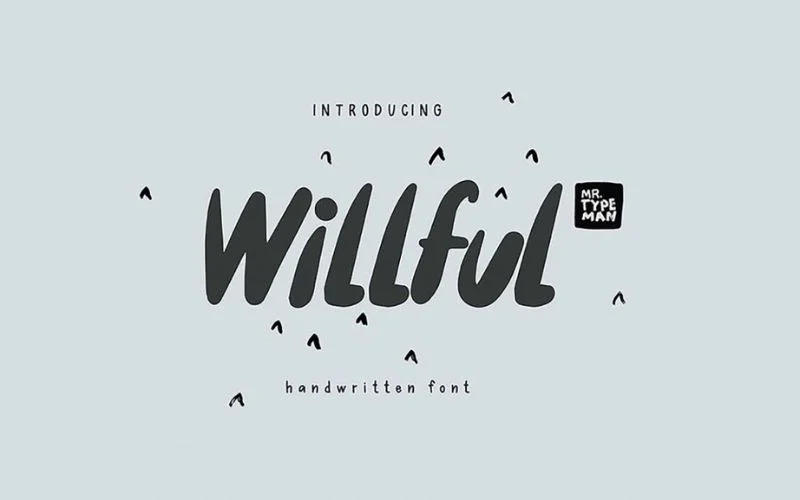
Willful is a bold and unique handwritten brush font with natural, imperfect details that mimic the human touch. Its varying character sizes give it an organic and lively feel. You can pair its uppercase and lowercase letters for a playful and friendly vibe.
It is perfect for creating greeting cards with birthday wishes or warm notes. This vibrant font comes in OTF and TTF formats and works beautifully for posters, minimalist UX/UI designs, packaging, and branding projects. Its versatility and charm make it one of the best free handwritten fonts for any creative endeavor.
2. Huf Script: Beautiful Handwriting Fonts Free
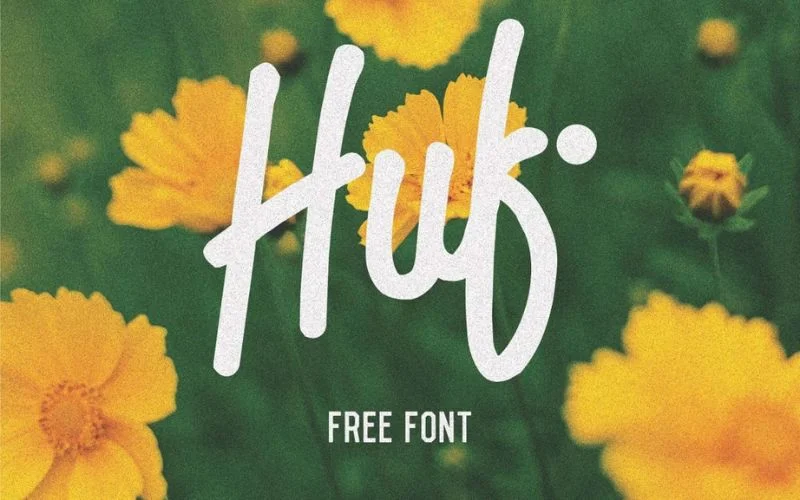
For designers, there’s nothing better than finding the perfect script font to match your design. Whether you’re working on a professional project that needs a personal touch or a fun, creative weekend project, the right font can take your design to the next level. The Huf Script Font is an ideal choice for a smooth and sophisticated handwritten style.
With its classic handwritten style, it adds a warm and familiar feel that you and your audience will adore. Featuring beautiful ligatures, Huf is perfect for greeting cards, invitations, branding projects, logos, apparel, posters, and more. Plus, it includes uppercase and lowercase letters, along with numbers.
3. Butterland Script Font
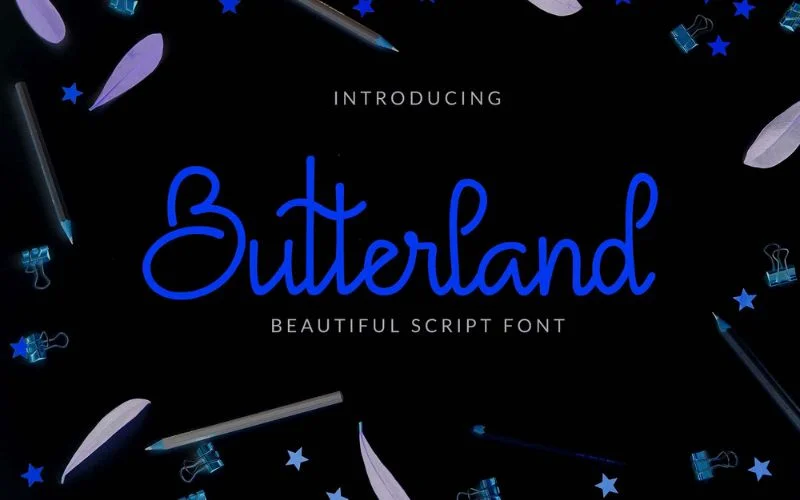
Butterland blends cuteness and style effortlessly. Its elegant calligraphy adds a delightful touch to any project, ensuring it grabs attention at first glance. The script font features unique designs for uppercase and lowercase letters, along with numerals and punctuation, giving you plenty of creative options. Plus, its professional-looking ligatures make it feel like a true handwritten masterpiece.
While it works seamlessly with Adobe Illustrator, this font truly shines in elegant projects. It’s one of the best free handwritten fonts for cosmetics and makeup branding, floral business cards, wedding invitations, heartfelt messages, or even romantic lyrics with the right backdrop. Whatever the occasion, this font brings a classy and polished feel to your designs.
4. Kitten Days: Beautiful Handwriting Fonts Free Download
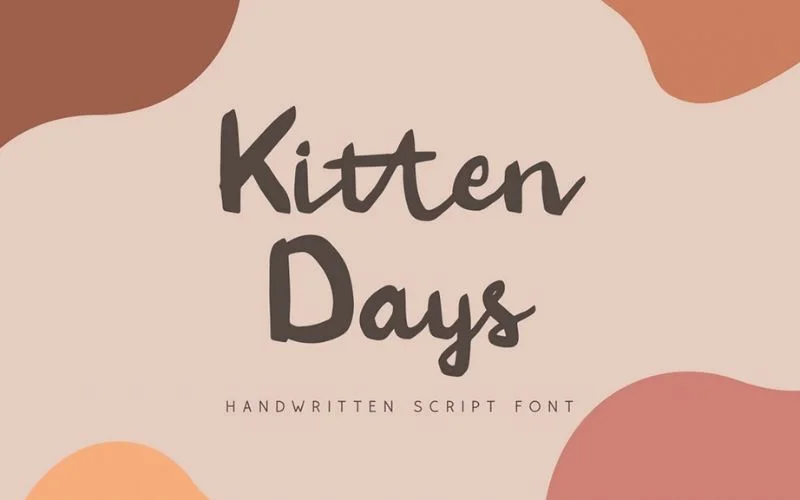
The Kitten Days handwritten font offers lowercase calligraphy letters for a cozy, natural feel and uppercase letters with a fresh, clean look. It also includes numbers and symbols with a simple design. It is perfect for when you need a subtle, humble touch to grab attention.
This font goes well on clothing with embroidered patterns, colorful invitations, thank-you cards, greeting cards with creative sketches, or even on unique stationery items. It’s also great for postcards or textbooks.
5. Samble Playful Handwritten Font
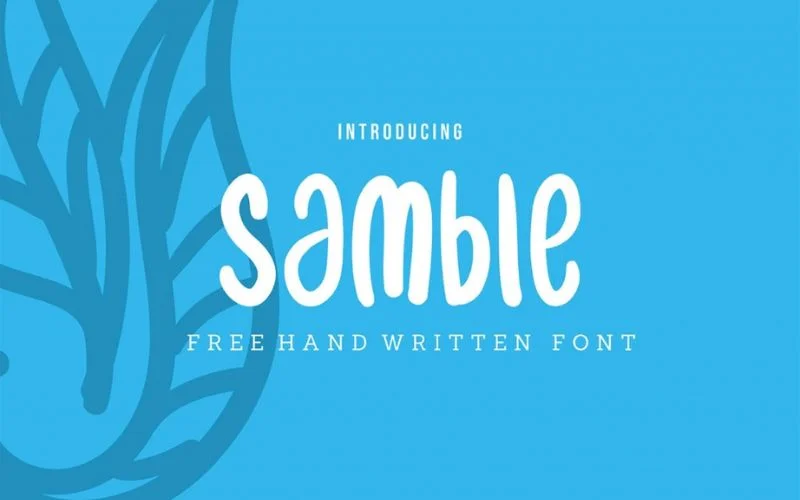
Samble is a fresh, free hand writing font that’s perfect for adding a playful and casual vibe to your designs. It works great for both headlines and body text, making it versatile for all kinds of projects. Use it on posters for summer parties, events, or fun activities.
With its cheerful characters, it’s also ideal for websites aimed at younger audiences or for creating typography art with quotes. Samble can even be a part of app designs, bringing a relaxing and friendly feel when paired with the right colors.
You might also like: Unique Color Palettes To Spark Your Next Design
6. Ustroke Rough Hand Drawn Font
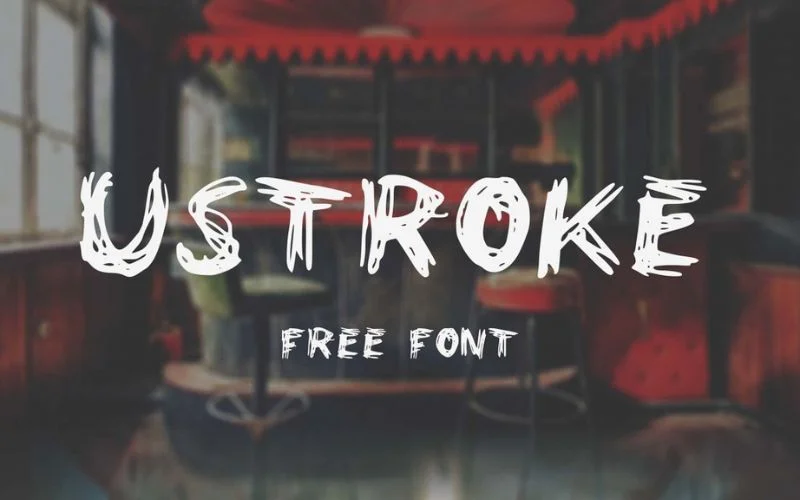
If you haven’t used a hand-drawn font before, this one is a must-have for your collection. The Ustroke Rough Hand-Drawn Display Font has a unique, jagged, and scratchy look that sets it apart from other hand-drawn fonts.
It comes in TTF format, with uppercase letters, numbers, and support for Latin and Cyrillic characters, all in a scribbled, sketchy style. This is one of the best free handwritten fonts for badges, apparel designs, packaging, logos, watermarks, and more. It’s perfect for projects that need a gritty, horror-inspired, or vandalized vibe.
7. Eddy: Best Free Script Handwriting Fonts
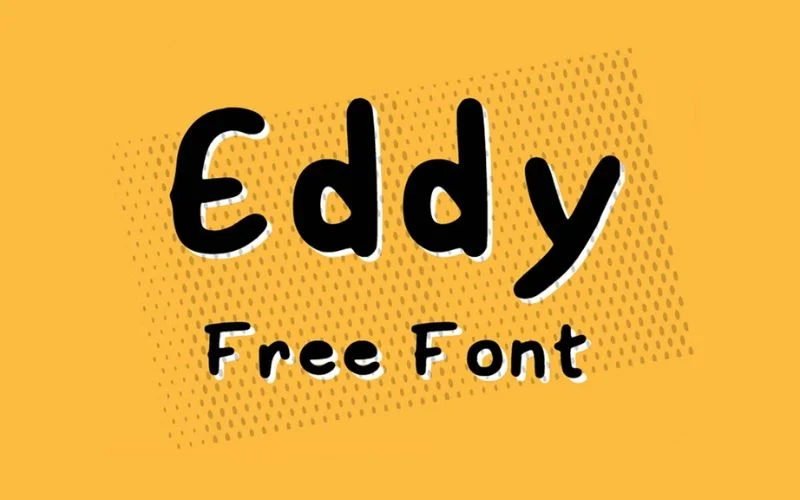
This handwritten font is perfect for branding designs, book and comic covers, postcards, or even app designs. The font features a cool shadow effect on each letter, adding depth and boldness to the characters.
If you’re not into the shadow effect, changing the colors or background can give it a more classic, natural look. Skip the pen and paper and use Eddy to create fun designs like diary covers inspired by The Diaries of a Wimpy Kid or those beloved board game boxes!
8. Fish and Chips: Top Free Handwritten Fonts
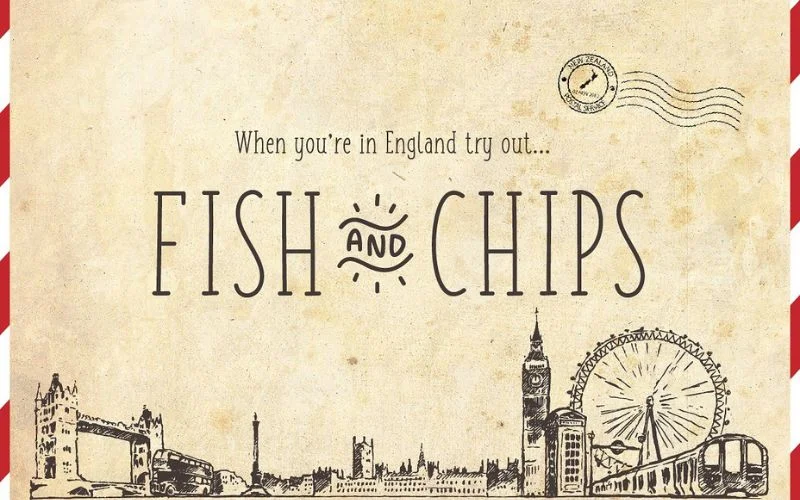
You don’t always need images or graphics to make your design stand out. Great fonts can do the trick too! Fish and Chips is a fun handwritten sans serif font that’s perfect for almost any design.
Imagine the cozy feel of milk and cookies with a touch of freedom, like skybirds soaring. This font comes with numerals, symbols, and supports many languages. Plus, you can choose from different styles like regular, bold, and light to fit your project.
9. Eustache Brush Handwritten Font
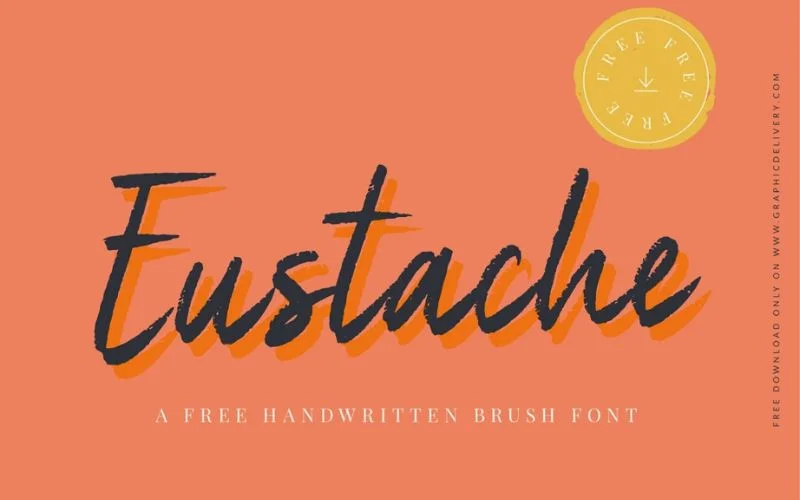
Ever wonder why handwritten designs always seem to catch our eye? It’s because they give off a sense of authenticity and effort, even if they weren’t actually written by hand. One font that nails this feeling is the Eustache Brush Font. This font mimics the look of a dry brush marker, giving your designs an elegant, handmade touch.
With its beautiful curves and slants, it’s one of the best free handwritten fonts for everything from flyers and posters to invitations and business cards. It includes both uppercase and lowercase letters, numbers, punctuation, and special ligatures.
10. Gamata: Best Free Handwritten Script Fonts
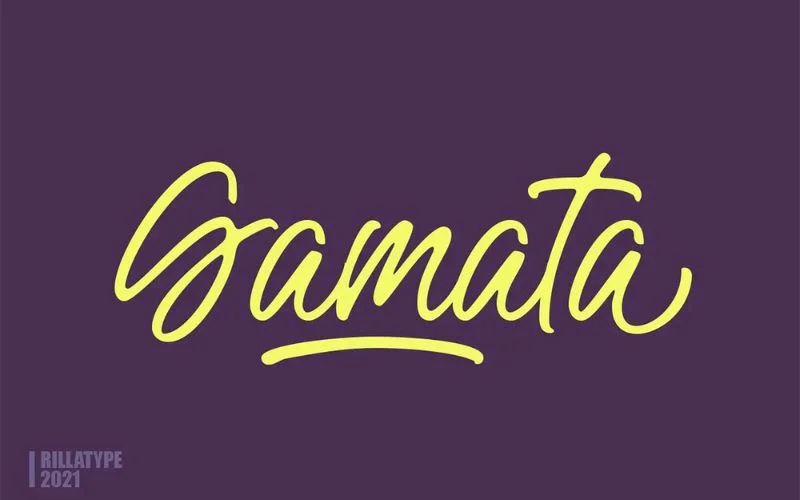
Designers create connected cursive fonts for many reasons. Whether it’s to capture the beauty of a loved one’s handwriting, preserve the penmanship of a historical document, or turn charming handwriting into a creative asset. Gamata was designed by Rillatype for just this purpose.
It’s simple, classy, and has a relaxed vibe, making it versatile for a wide range of projects. With its natural, flowing brush script style, Gamata is perfect for branding, packaging, book designs, logos, invitations, posters, and anything else that calls for a laid-back yet stylish font.
You might also like: Iconic 90s Fonts That Will Bring Retro Style To Your Designs
11. Housky Handwritten Font
If you’re after an elegant touch, a high-quality handwritten font is the way to go. The Housky free handwritten font is a perfect choice. It has so much character, making any project feel top-notch.
The font strikes a great balance. It’s neat and consistent but still has little quirks between the letters that give it a unique, custom-made feel that many standard fonts miss.
12. August Handwritten Font
August is a handwritten font with a relaxed, natural feel, showcasing charming imperfections in its strokes. Its simple yet fresh characters give off a modern vibe, making it perfect for a variety of projects.
You can use it for summer romance book covers, eye-catching bookmarks with inspiring quotes, posters for beach events, or even on take-away cups for refreshing drinks. Whether paired with bright colors or darker tones, August adds energy to any design, giving it a lively, vibrant touch that captures the essence of the summer rush!
13. Emmeline Free Brush Font
These days, designers are blending brush techniques with typography in fresh, modern ways, often mixing them with digital art. A great example of this is Emmeline, a free handwritten brush font. Available in OTF, TTF, and WOFF formats, it includes 260 characters, with both uppercase and lowercase letters, plus some special characters.
This is one of the best free handwritten fonts for a variety of projects, including poster designs, social media posts, printed accessories like t-shirts, mugs, and pillowcases (perfect as gifts!), postcards, etc.
You might also like: Best WooCommerce Themes for Your Online Store
14. My Kids: Best Free Handwritten Fonts
My Kids is a fun, handwritten font that captures the playful energy of children. It comes in both OTF and TTF formats and includes uppercase and lowercase letters, numbers, symbols, and multilingual characters. This font is perfect for kids’ content. Whether you’re designing activity sheets, textbooks, or educational apps and websites.
It also works great for creating playful artwork, birthday invitations, posters, stickers, and even branding or packaging designs. Whether you’re working on a project for kids or looking to add some fun to your designs, My Kids has got you covered!
15. Southampton Handwritten Free Font
Southampton is a chic handwritten font with a signature style. Its beautiful lettering makes it perfect for a variety of design projects, including logos, branding, invitations, stationery, wedding designs, and more.
Whether you’re working on a personal project or something for a special event, this elegant script font adds a classy and modern touch, giving your design a genuine, handwritten feel.
16. Cartel Deux: Free Handwritten Fonts
The Cartel Deux typeface is a fresh addition with 5 different styles. It features a unique design that blends script with rounded edges, giving it a distinctive look. This font works great for personal projects like logos, t-shirt designs, posters, websites, and more.
17. Romantically: Cursive Script Font Free
Romantically font brings a graceful touch to your designs. Whether you’re creating invitations or social media banners, it will give your words an unforgettable flair. The font comes in OTF format, and you can download it with just one click. You can easily switch between the regular and italic styles, which really makes a difference in how your text looks.
It includes uppercase and lowercase letters, numbers, symbols, and even multilingual support. Plus, the font comes with extra swashes that add a beautiful touch to your calligraphy. This free font is perfect for logos, branding, invitations, posters, and more!
18. Thirdlone Handmade Font
With a blend of modern and vintage styles, Thirdlone has a distinct vibe that’s hard to miss. The hand-brushed design gives it a special touch, while the monoline serif adds elegance. Its curved, flowing lines make it great for everything from apothecary packaging to attention-grabbing headlines.
It’s also ideal for decorating apparel, labels, and packaging, with a rustic yet modern feel. The free-flowing, cursive design and bubbly letters add a friendly touch, making it perfect for any project that needs a fresh, hip, and vintage flair. The Thirdlone Handmade Font is definately one of the best free handwritten fonts.
You might also like: Best Free Font Websites For Designers
19. Perfect Moment: Free Hand Writing Font
Perfect Moment handwritten brush font comes with Open Type features and a variety of characters to give your designs a unique, personal touch. Whether you’re creating posters, cards, or branding materials with bold messages, this font brings an adventurous vibe to any project.
You can use Perfect Moment for your ads, menus, lifestyle posts, or blogs. Just make sure to use backgrounds that let the brush strokes shine, especially for large texts and headlines.
20. Sunglory Lovely Handwritten Font
Sunglory is a playful handwritten font. Its light and cheerful design makes it perfect for summer-themed posters or projects aimed at kids, like after-school club ads.
When paired with colorful backgrounds, Sunglory’s friendly, soft edges make it great for social media promotions, especially those showcasing summer offers or simply spreading positive, sunny vibes. It can also be used to decorate personal items. This charming font comes with multilingual support and is available in TTF and OTF formats.
21. Hamiltone Signature Script Font
Script fonts have a natural, flowing look, similar to handwritten letters, and the Hamilton Signature script font is a perfect example of this. It has a premium feel, but with a slight rustic touch, especially in the tapered edges of the letters. The preview image shows the font alongside an ink pen, adding to its charm.
The way the letters are angled, with the pen placed beside them, gives it a unique and elegant vibe. This is one of the best free handwritten fonts for designs where you want to add a refined touch.
You might also like: Canva Font Pairings To Elevate Your Designs
22. Ragland: Free Elegant Handwriting Fonts
Ragland is a stunning free font that turns every word you type into a visual masterpiece. Its mix of delicate strokes and stylish uppercase and lowercase letters creates an elegant look that’s perfect for making a statement.
You can pair it with bolder, thicker fonts, and you’ll have designs that truly stand out. From posters and business cards to logos, websites, social media banners, invitations, and more, the possibilities are endless.
23. Tomatoes Free Font
Script fonts are elegant, cursive fonts that look like handwritten letters. They’re perfect for all kinds of design projects, from wedding invitations to branding and greeting cards. A great example is the Tomato font, which is popular for posters. It includes both uppercase and lowercase letters, along with special characters.
24. Yellow Rabbit: Cute Handwriting Font Free
Yellow Rabbit font is full of character, and it’s not just about the words, it’s about the style. Its curves make it look great both on screen and in print, especially for invitations, letters, greeting cards, and business cards.
The thick strokes at the start of each letter gradually taper off into thinner lines, giving it a unique touch. If you want your text to stand out even more, you can add simple swashes at the beginning and end of your letters, perfect for designs like coffee shop signs, stickers, or fun posters for kids.
25. Free Stay Classy Script Font
Handwritten fonts have become more popular in recent years, and with that comes an overwhelming number of options. But don’t worry, Stay Classy is here to the rescue. It’s a simple, yet elegant font that works perfectly for a wide range of projects. Whether it’s for your blog, social media posts, branding, or even personal invites and greeting cards, Stay Classy fits the bill.
It’s easy to read, making it great for both headlines and body text. Plus, with over 70 ligatures, lowercase alternatives, and support for multiple languages, this font has everything you need!
26. Amatic SC Display Font
If you’re looking for a web font that’s both unique and playful, check out Amatic SC. This hand-drawn font is simple yet stands out, making it ideal for titles or short text.
Since it’s harder to read at smaller sizes, it’s best used for larger headings or small amounts of text. It supports both Latin and Hebrew characters, and works really well when paired with other fonts. If you want to add some personality to your website without going over the top, Amatic SC is a great choice!
27. Duck Step Free Font
Duck Step is a light and playful font with rounded edges that give it a fun, modern feel. Its slightly irregular letters add a unique touch, making it stand out in a subtle way.
This handwritten typeface gives off a relaxed, laid-back vibe, making it one of the best free handwritten fonts for designs like coffee or dessert shop menus, summer project flyers, or even kids’ apparel.
28. Avokado Font
Avokado is a fun and bold hand-drawn font with rounded, cartoon-style letters. Its soft, bubbly shapes give off a warm and joyful vibe, making it perfect for playful designs that need a touch of charm.
This font works great for kids’ books, toy packaging, party invitations, and colorful branding. Its hand-drawn look adds a personal, friendly feel, while the bold letters make sure your message stands out with confidence and cheer.
You might also like: Best Font Combinations To Elevate Your Typography
29. Super Ninety Font
Super Ninety is a unique font with fun, wavy curves that bring a lively vibe to your designs. Whether you’re working on branding or any other project, this font adds an energetic and creative touch. Bring a mix of modern style and vintage flair to your work with Super Ninety!
30. Alpha Renote Font
Alpa Renote is one of the best free handwritten fonts that adds a charming, casual vibe to your designs. It’s perfect for stationery, notes, kids’ products, school projects, logos, quotes, or anything else that could use a personal touch.
This font brings warmth and personality to your work, making it a great fit for both fun and professional projects. Its friendly and approachable style makes it a versatile choice for all kinds of creative work.
31. Rimba Zero Font
Rimba Zero is a fun, graffiti-inspired font that captures the energy of hand-drawn letters. Its quick, uneven strokes give the feel of a marker on concrete, adding an urban vibe and a raw, authentic touch to your designs.
This font is perfect for projects that need a bold, laid-back personality, like posters, album covers, branding, and designs aimed at a younger audience. Its rough charm and dynamic letters make it stand out with a fresh, friendly look.
You might also like: Best Practices For Website Design Excellence
32. Maritime Wonderine Font
Maritime Wonderine is a beautiful script font that exudes elegance and charm. Every detail is crafted with care, making it perfect for elevating any project, whether it’s wedding invitations, creative branding, unique packaging, or artistic crafts.
This font doesn’t just display words, it creates a story of sophistication and style, leaving a lasting impression of beauty. Maritime Wonderine takes your designs on a journey of grace and creativity, making it a standout choice for anyone looking to add a touch of timeless allure.
33. Super Serene Font
Super Serene is a fun and playful font with rounded, hand-drawn letters full of charm and personality. Its bouncy shapes and smooth curves create a cheerful vibe, making it a great choice for projects that need a friendly and approachable feel.
This font is perfect for children’s books, games, packaging, or any branding that calls for a whimsical and lighthearted look. The rounded edges and natural design give it a warm, handcrafted touch that adds a delightful, personal feel to your work.
34. South Mongolia Font
South Mongolia is a pretty handwritten script font, made with a natural, relaxed flow and precision brush strokes. It’s perfect for branding, websites, and editorial designs.
35. Black Asteroids Font
Black Asteroids is an energetic hand painted brush font, made with natural rough strokes and unique style, perfect for branding, websites, and editorial designs.
Final Thoughts
And there you have it, a treasure trove of 35 best free handwritten fonts to bring your designs to life! Whether you’re working on a heartfelt greeting card, a playful poster, or a personal branding project, the right font can make all the difference. Handwritten fonts have this incredible way of adding warmth, personality, and that special touch that stands out. The best part? You don’t have to spend a dime to access these creative gems!
So, why not give them a try? Explore, experiment, and let your creativity flow. These fonts are an extension of your unique style and vision. And with so many beautiful options, there’s something here for every project and mood. Ready to make your next design unforgettable? Download a few favorites, and let the magic begin! Happy designing!